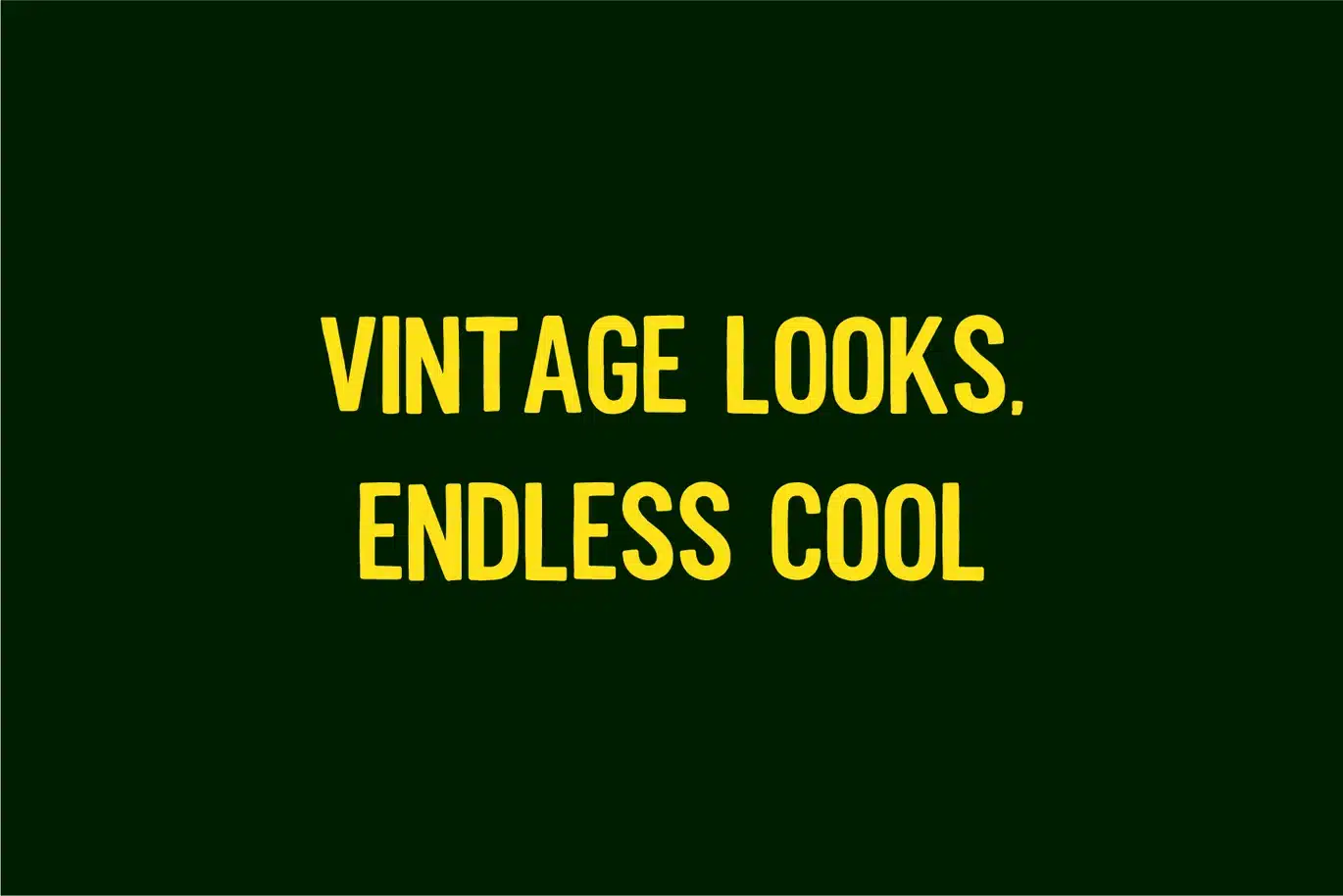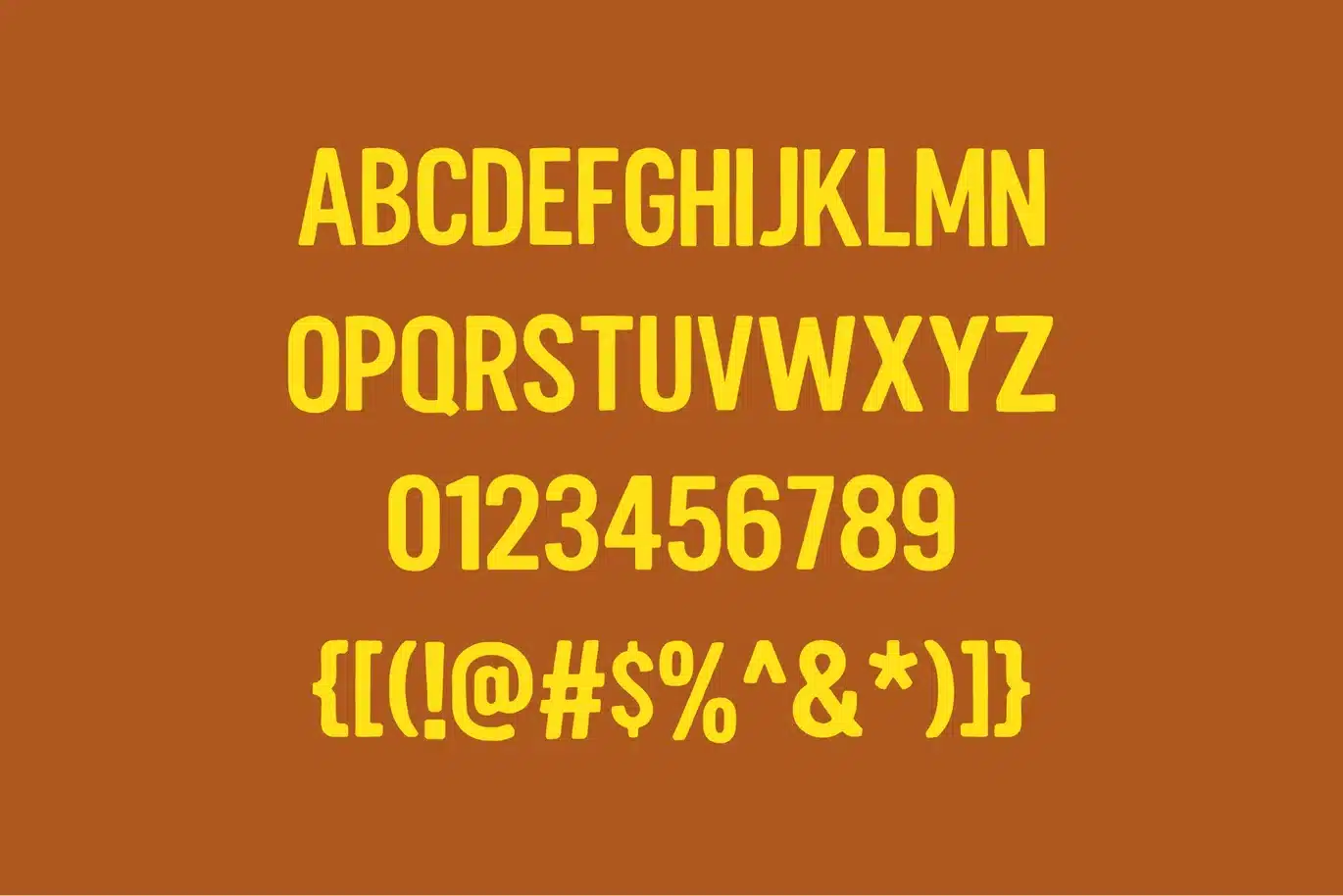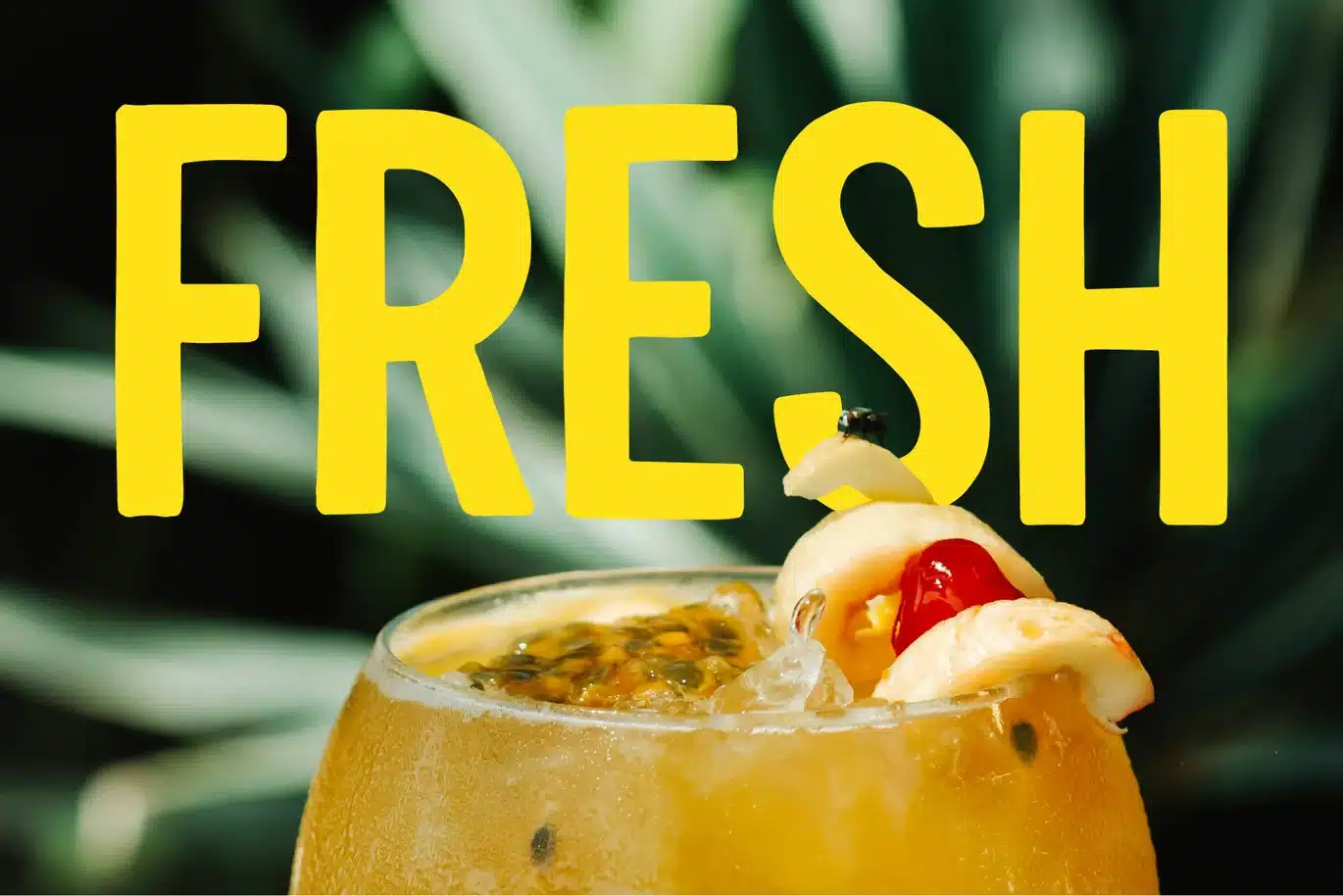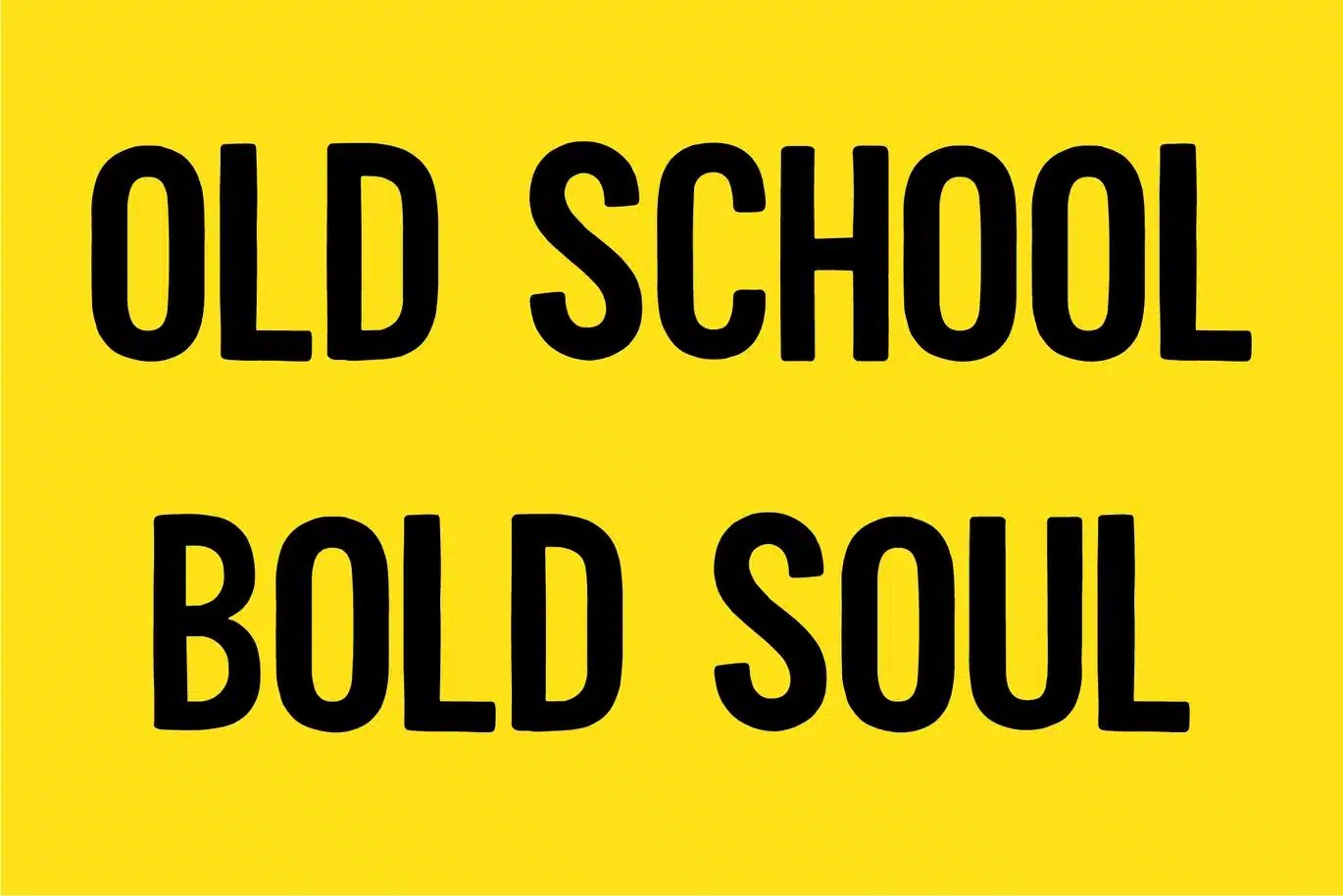
Cirros – Retro Display Font
Cirros is a retro-inspired font that combines classic design elements with a modern touch. It features bold, clean lines and geometric shapes, offering a vintage yet contemporary vibe. Ideal for projects that require a playful, nostalgic feel, this font captures the essence of mid-20th-century typography while remaining versatile for various design applications. Whether used for headlines, logos, or posters, Cirros exudes charm and character with its distinctive retro flair.
Handraw.